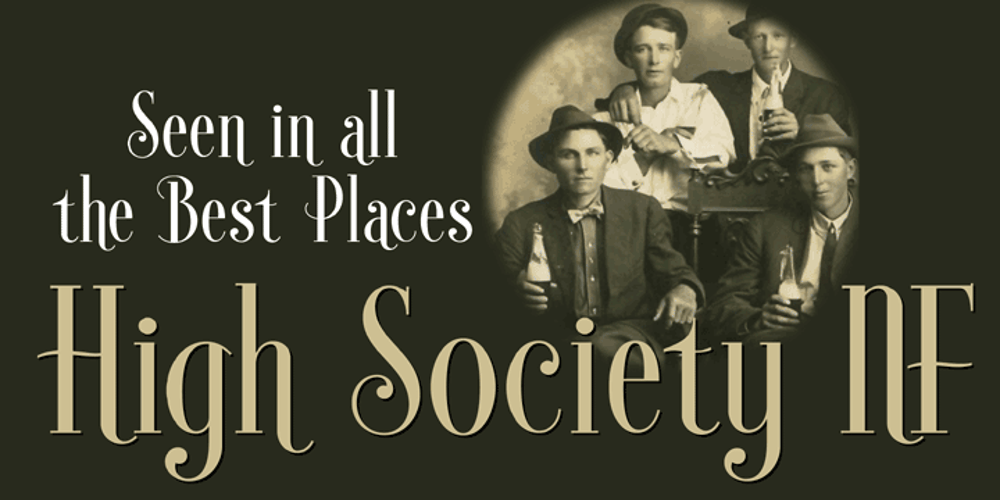
High Society NF Font Family was designed by Nick Curtis and published by Nick’s Fonts. High Society NF contains 1 styles and family package options. Blandford Press strikes again, with a delightful, delicious, de-lovely offering from their 1946 tome, Lettering for the Commercial Artist. The editor, A. H. Hunter, called this one simply “The Elegant Alphabet” and cautioned that it, “being neither quick nor easy, needs to be used with discrimination.” Or not…